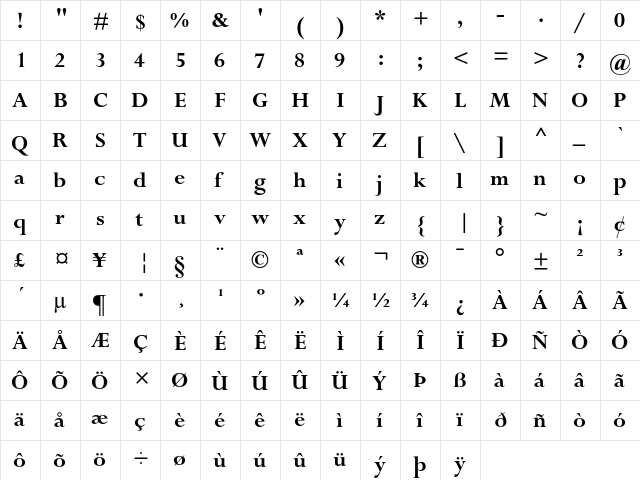
Perpetua Bold
Design Context for Perpetua Typeface
Perpetua is a composed and adaptable typeface that performs quietly and consistently across a wide range of design contexts. Its bold stroke weight gives it real presence on the page.
Pro Tip: Use Perpetua in both headline and body roles to test its range before committing to a single application.